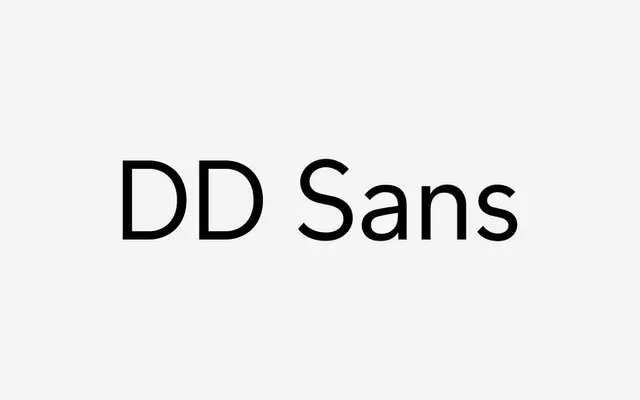
A circular geometric sans in three weights, sold as a general-purpose OTF download for $25.
Three weights of a clean, circular geometric sans with no stated italic or condensed cuts. Positioned as broadly applicable, though the sparse product copy gives little away about its distinguishing characteristics. At $25 for an OTF download, it sits at the budget end of the independent foundry market.
Described explicitly as circular and geometric, placing it squarely in the geometric sans tradition alongside faces like Futura or Circular.